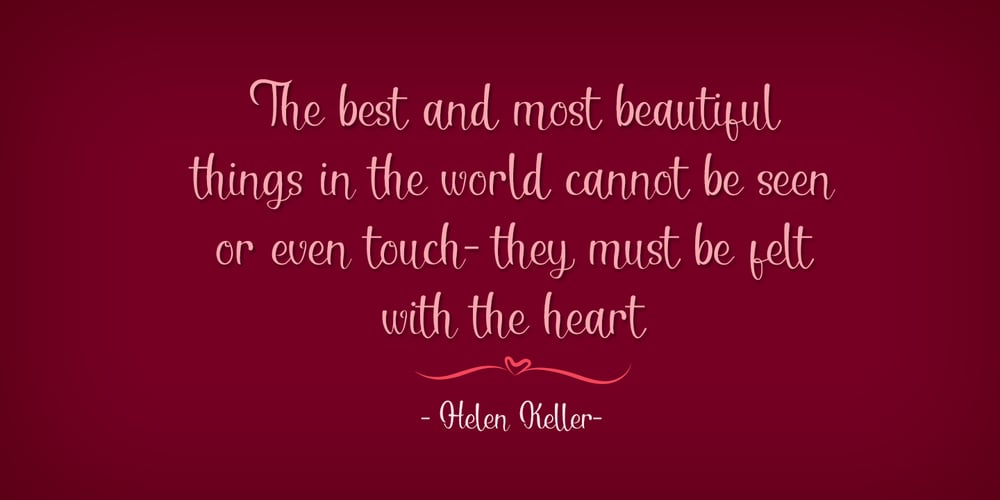
Serenita Font Family was designed by Dimas Prasetyo and published by DM Studio. Serenita contains 2 styles and family package options. Serenita is a casual script font that will give your design a warm, modern touch, with feminine style. It is simple, yet elegant. This font work easily to paired with another font, highly recommended to combine this font with modern Serif family. But it will looks gorgeous just to let it stand by its own. Serenita is inspired by woman’s handwritten, which has it’s own lovely personality. It work well for logo, branding, posters, headlines, restaurant’s menus or quotes. Completed with extra 26 line swashes in different font file to help you access easily– as easy as by typing from A to Z.